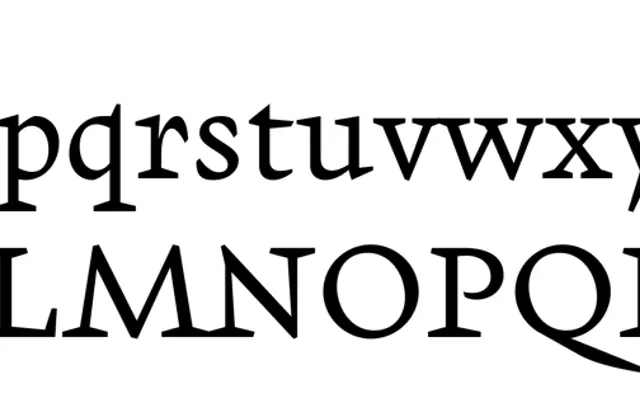
Kristal
Bold Monday · Eyal Holtzman · 2021
A book serif by Eyal Holtzman with blade-like stroke endings and spirited italics, extended by an all-caps inline titling style and an Ornaments font.
Originating as a logotype sketch, Kristal grew into a family of eight styles across three weights, each with a distinctive italic whose acute terminals enliven extended text. The Open Caps style introduces an inline treatment suited to monumental lettering, covers and card designs, harmonising with the text weights while functioning independently. The family received a Type Directors Club Certificate of Typographic Excellence in 2022 and covers an extensive range of Latin-script languages.
Kristal is rooted in calligraphic tradition with acute, blade-like stroke endings that give it an expressive humanist character; the Open Caps inline titling style and spirited italics reinforce a calligraphically informed, display-capable serif.